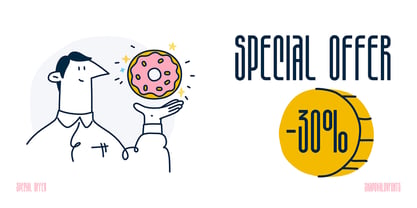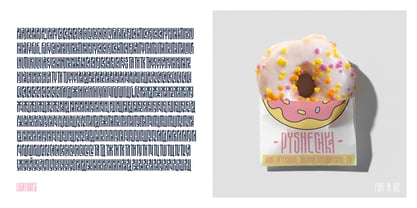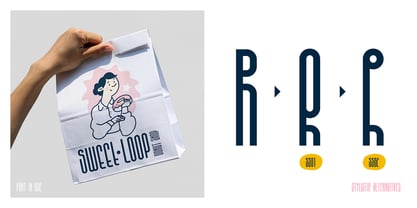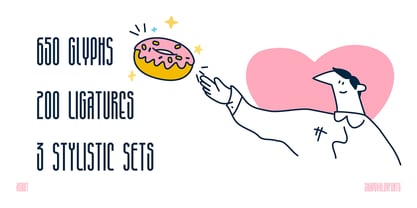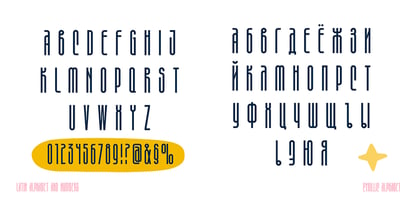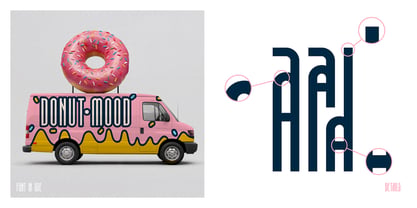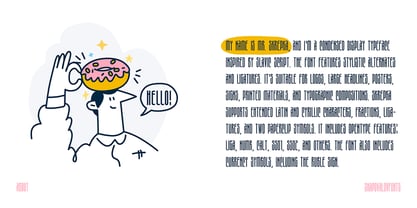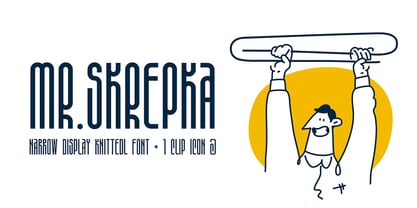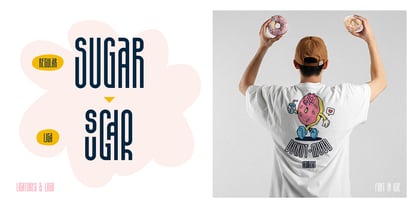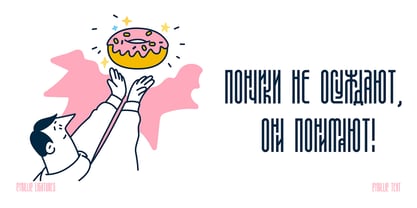
Mr.Skrepka
The Mr.Skrepka Font Family was designed by Sergey Shapovalov and published by Shapovalov Fonts. Mr.Skrepka contains 1 styles. More about this family
Mr. Skrepka is a striking condensed display typeface inspired by Slavic lettering traditions. It features sharp, expressive forms combined with a clean, modern structure, making it ideal for bold and confident visual communication. Designed for high-impact applications, this typeface excels in logos, large headlines, posters, signage, packaging, and branding systems. Its narrow proportions make it an excellent choice for space-conscious layouts without sacrificing visual presence. What distinguishes Mr. Skrepka is its harmonious balance between cultural character and clarity. The design draws from Slavic forms while maintaining a controlled, contemporary aesthetic, allowing it to feel unique without becoming overly decorative. The typeface includes stylistic alternates and ligatures, providing designers with the flexibility to shape tone and rhythm within their compositions. Mr. Skrepka supports extended Latin and Cyrillic character sets, along with fractions, ligatures, and a comprehensive set of currency symbols, including the ruble sign. Additionally, it features two custom paperclip symbols, adding a subtle yet recognizable detail to the font’s identity. For optimal pairing, Mr. Skrepka complements neutral grotesque or humanist sans-serif typefaces, allowing it to take the lead as a display voice while the companion font supports longer texts.